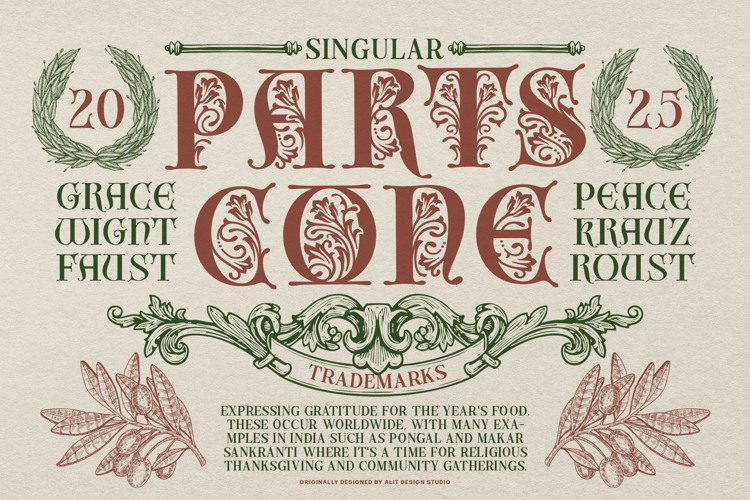
Verond Son Font
Verond Son: A Symphony of Classical Ornament
Step into a world of timeless elegance with Verond Son, a decorative display font where every letter tells a story of history and artistry. Inspired by the intricate beauty of classical design, Verond Son is crafted for those who seek to infuse their work with a touch of grandeur and sophisticated charm.